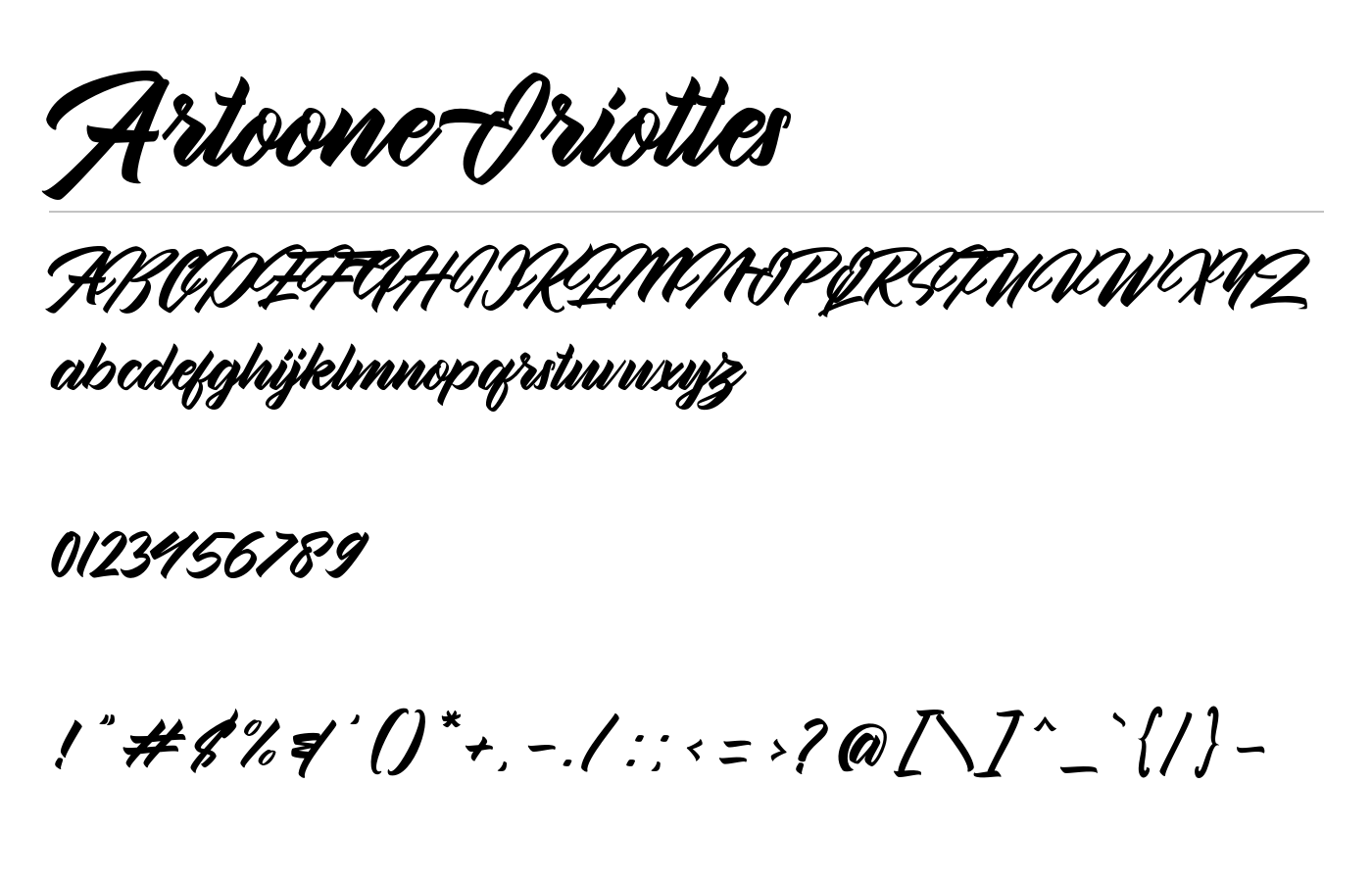
Artoone Oriottes is a bold, modern script font with a dynamic, hand-brushed style that feels energetic and personal. Its smooth, flowing letterforms with moderate contrast and distinctive angular strokes make it ideal for creative branding, logos, and headlines where a lively yet polished look is desired. This font works best in designs that want to convey warmth, style, and a handcrafted touch.
Artoone Oriottes Font
About Artoone Oriottes Font
| Font family | Artoone Oriottes Font |
| Designer | Vunira Design |